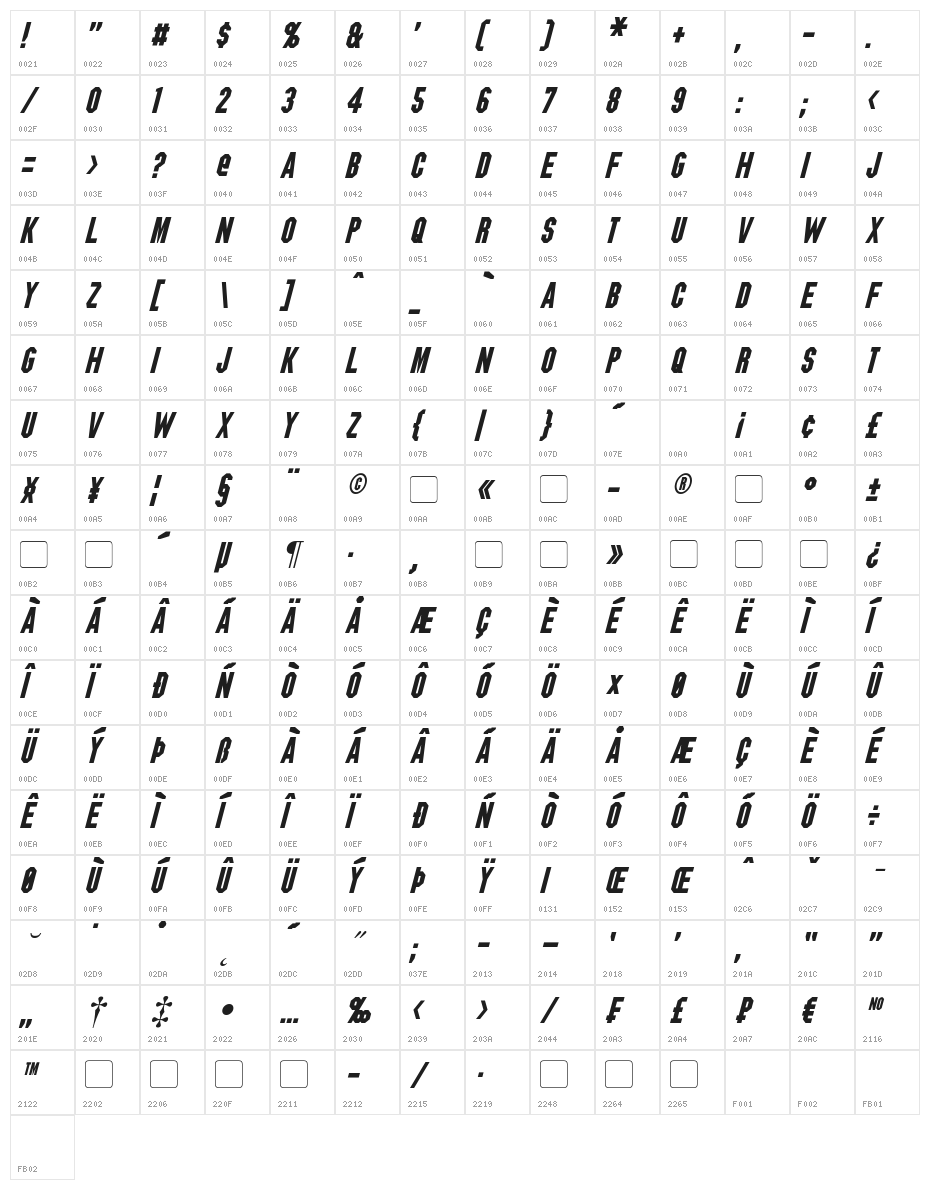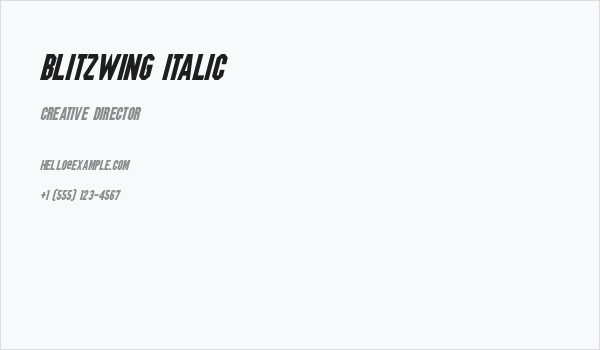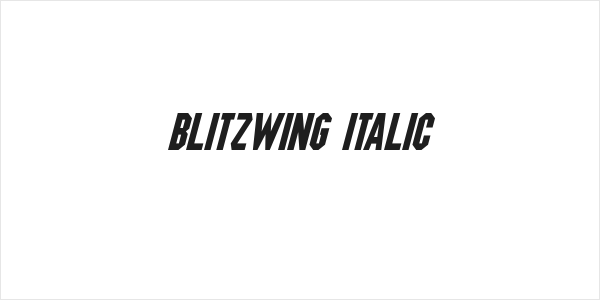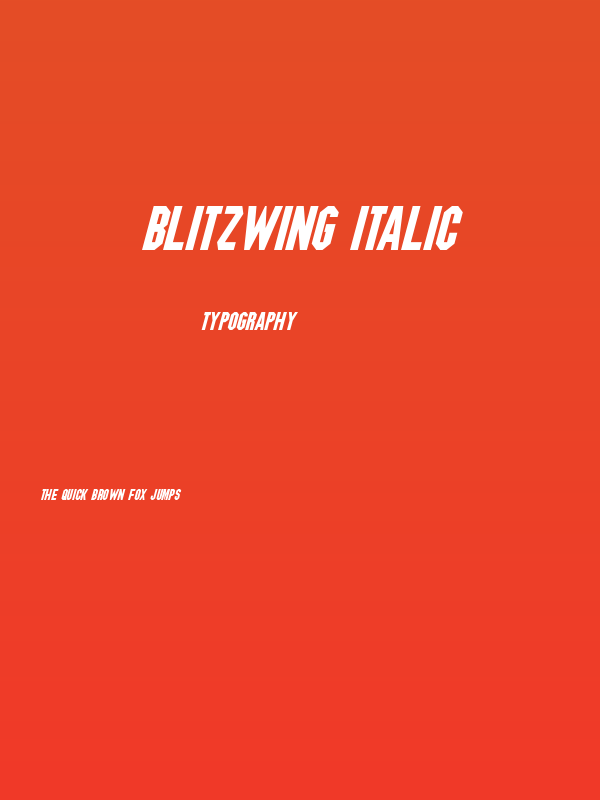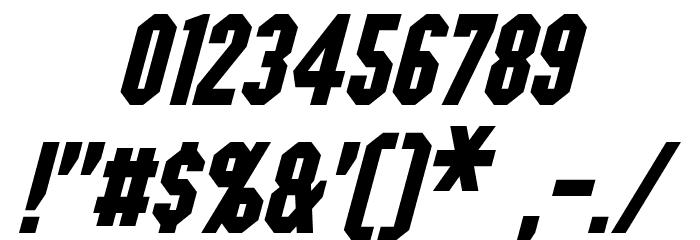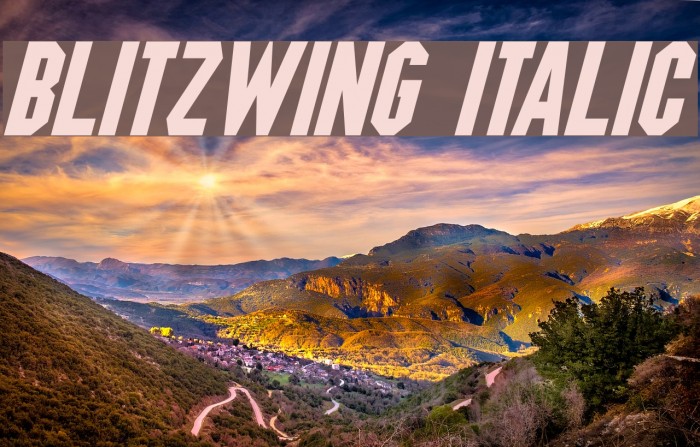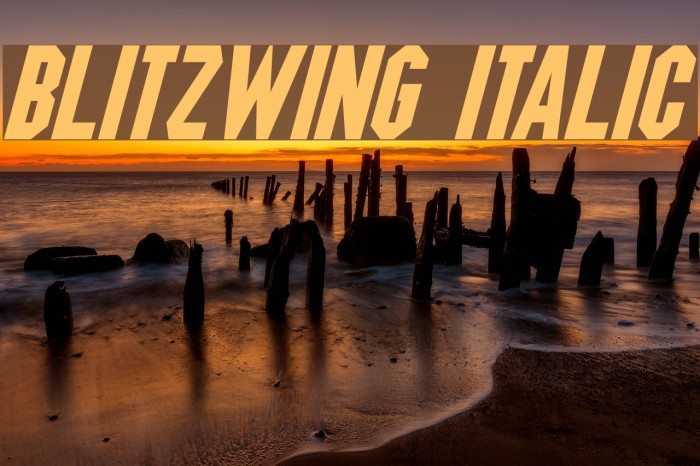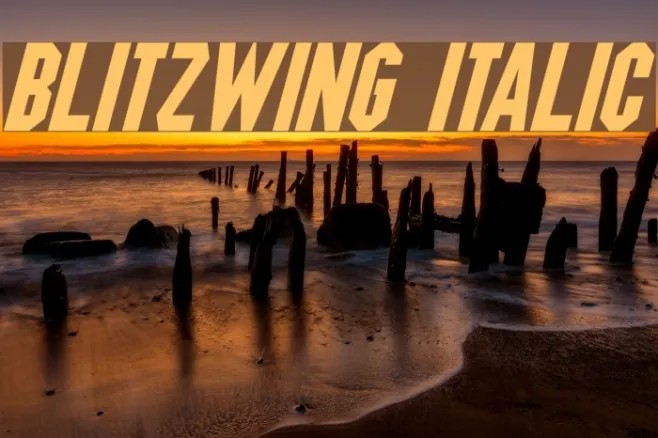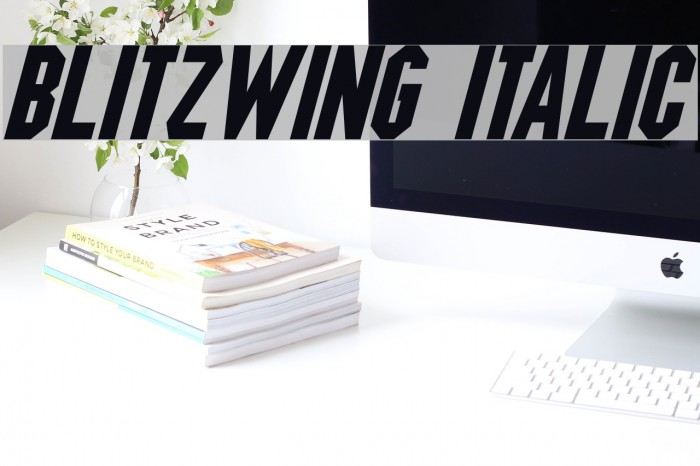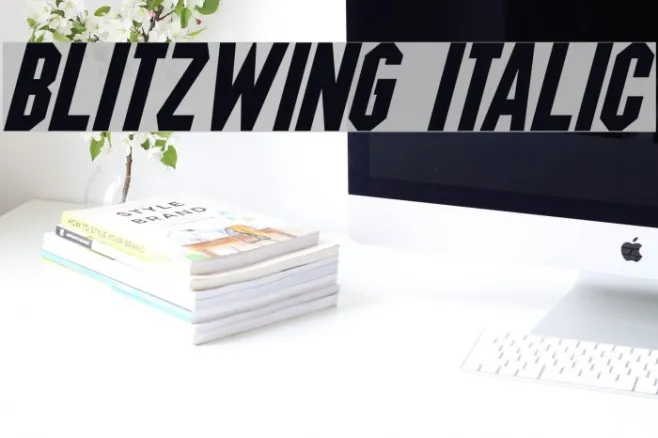
Blitzwing Italic Font
Blitzwing Italic Description
This font features a bold and dynamic style with a strong italic slant, giving it a sense of motion and energy. The characters are sharply angled, with a geometric structure that emphasizes their boldness. The uppercase letters are particularly striking, with a consistent height and width that creates a uniform appearance. The numbers and special characters maintain the same bold and angular design, ensuring a cohesive look across all glyphs. This font's unique style makes it stand out, ideal for projects that require a strong visual impact.
| Proposed Projects | Ideal for sports branding, action movie posters, and dynamic event flyers. |